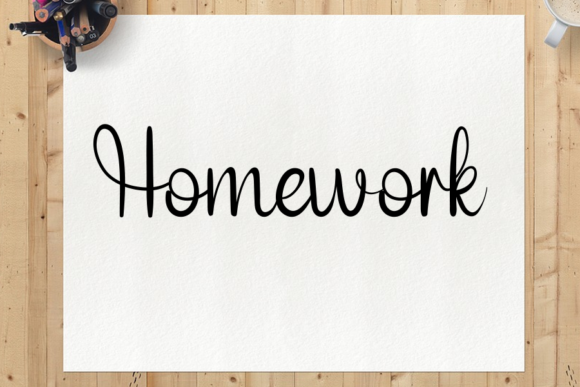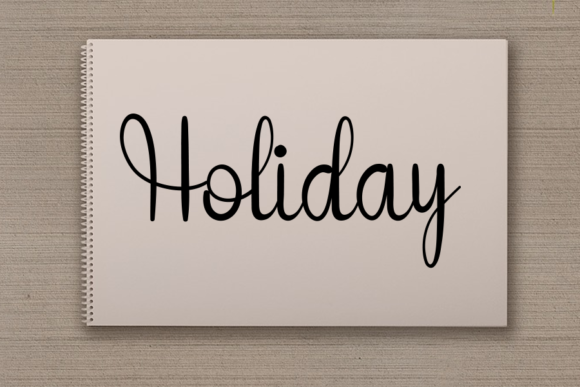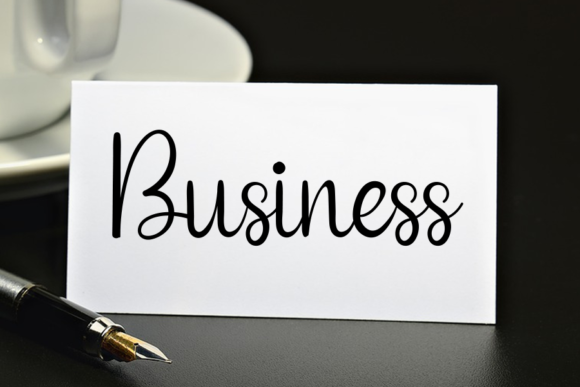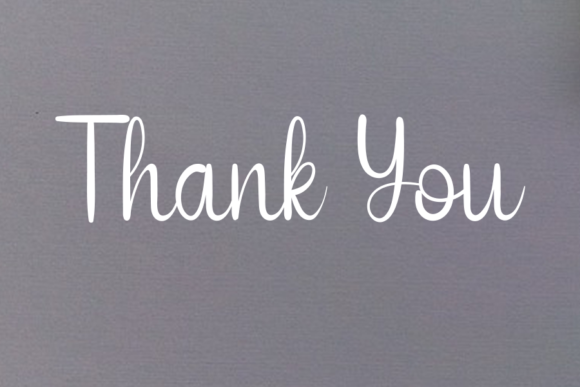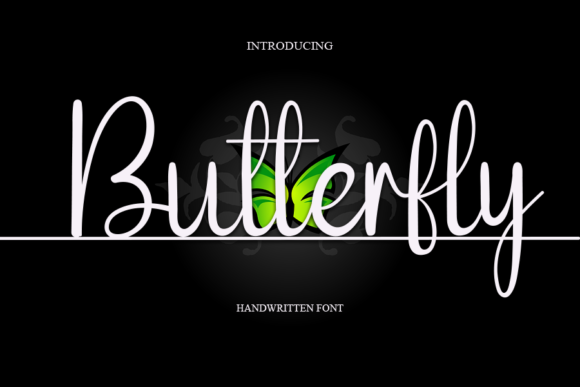
The Magic of Butterfly Font: Elevate Your Designs with Elegance
I’ll never forget the time I was working on a project for a client who wanted a whimsical, elegant feel. I had all the design elements in place – beautiful imagery, a clear message, and a stunning color palette. But something was missing. That’s when I discovered the Butterfly font, a delicate, elegant, and flowing handwritten font that completely transformed my design. In this article, I’ll share my experience with Butterfly font, its features, and how to make the most of it in your designs.
A Personal Review: What I Love About Butterfly Font
Here’s what I love about Butterfly font:
• ✨ Delicate and elegant: Butterfly font has a beautiful, flowing script that adds a touch of sophistication to any design.
• ✅ Well-balanced characters: Each character is carefully crafted to ensure that the font looks great in any context.
• 🌈 Versatile: Butterfly font matches a wide range of designs, from feminine and playful to elegant and professional.
While Butterfly font is amazing, there are a few things to keep in mind:
• 🤔 Limited use in very small sizes: Due to its elegant and delicate nature, Butterfly font may not be the best choice for very small text sizes.
• ⚠️ Requires attention to kerning: As with any script font, it’s essential to pay attention to kerning to ensure that the text looks natural and fluid.
Butterfly font was inspired by the beauty of nature and the elegance of handwritten scripts. The designer wanted to create a font that would capture the essence of a butterfly’s delicate wings and bring it to life in a digital format. With its flowing lines and beautiful characters, Butterfly font is perfect for designers who want to add a touch of elegance to their work.
What is Butterfly font? Butterfly font is a delicate, elegant, and flowing handwritten font.
Is Butterfly font suitable for body text? While Butterfly font is beautiful, it’s best used for headings, titles, and short paragraphs. For longer body text, you may want to choose a more readable font.
Is Butterfly font available in different languages? Butterfly font may not have full language support, but it does include a range of characters and glyphs to help you create beautiful text.